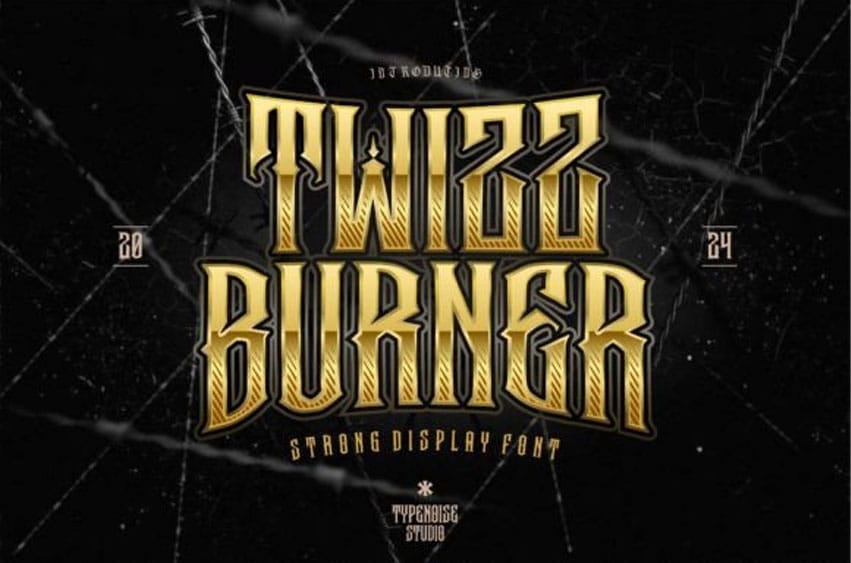
Twizz Burner Font Unleash your artistic genius with Twizz Burner, a contemporary gothic style font, waiting to add an edge to your creative endeavors. Rendered in a sophisticated gothic style, it serves as the perfect tool to inject an air of modern elegance into logos, band branding, posters, and an array of other visual projects.
Illuminate your creativity with Twizz Burner, and watch your work take on an entirely new dimension of style and grace.